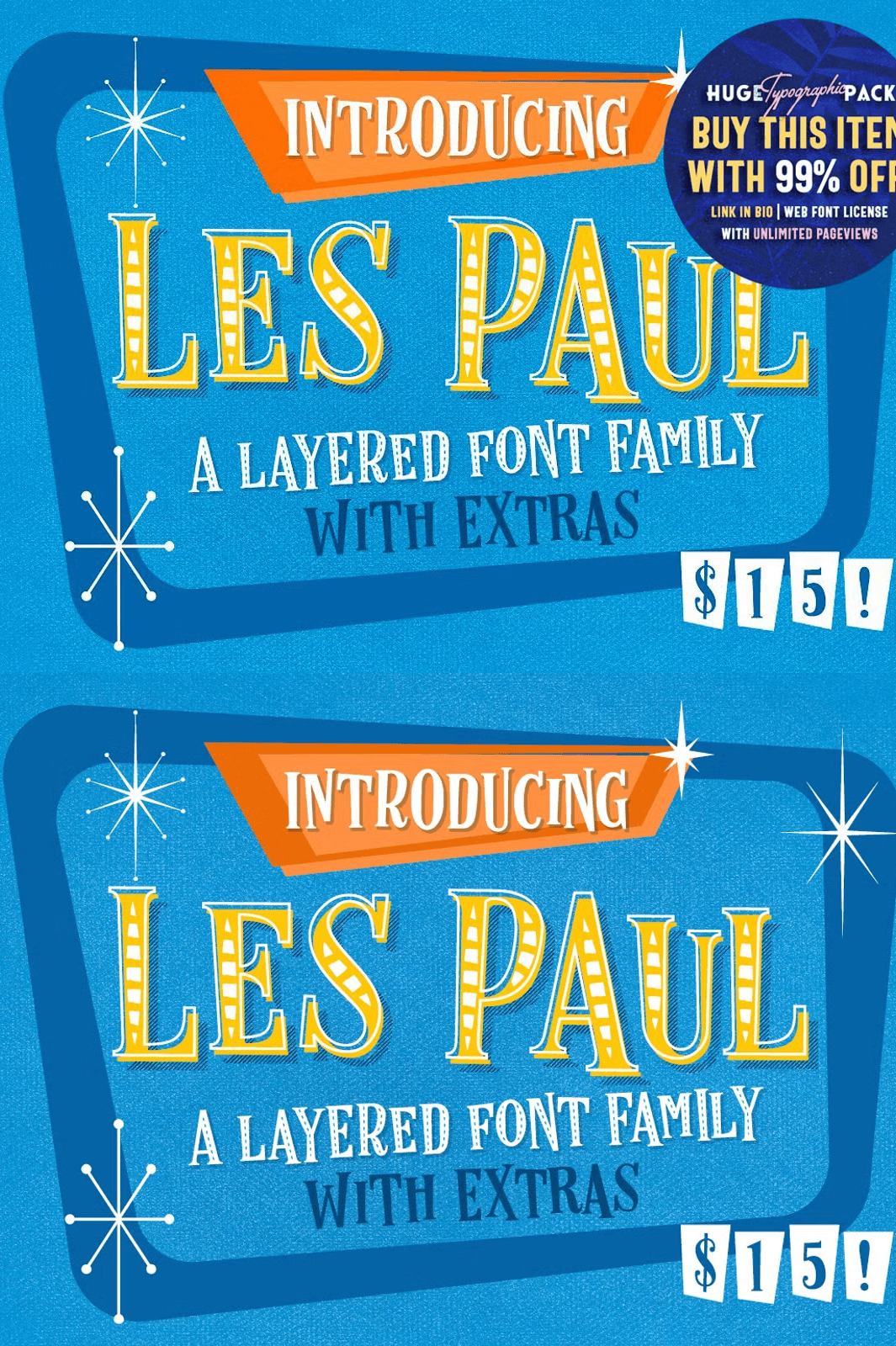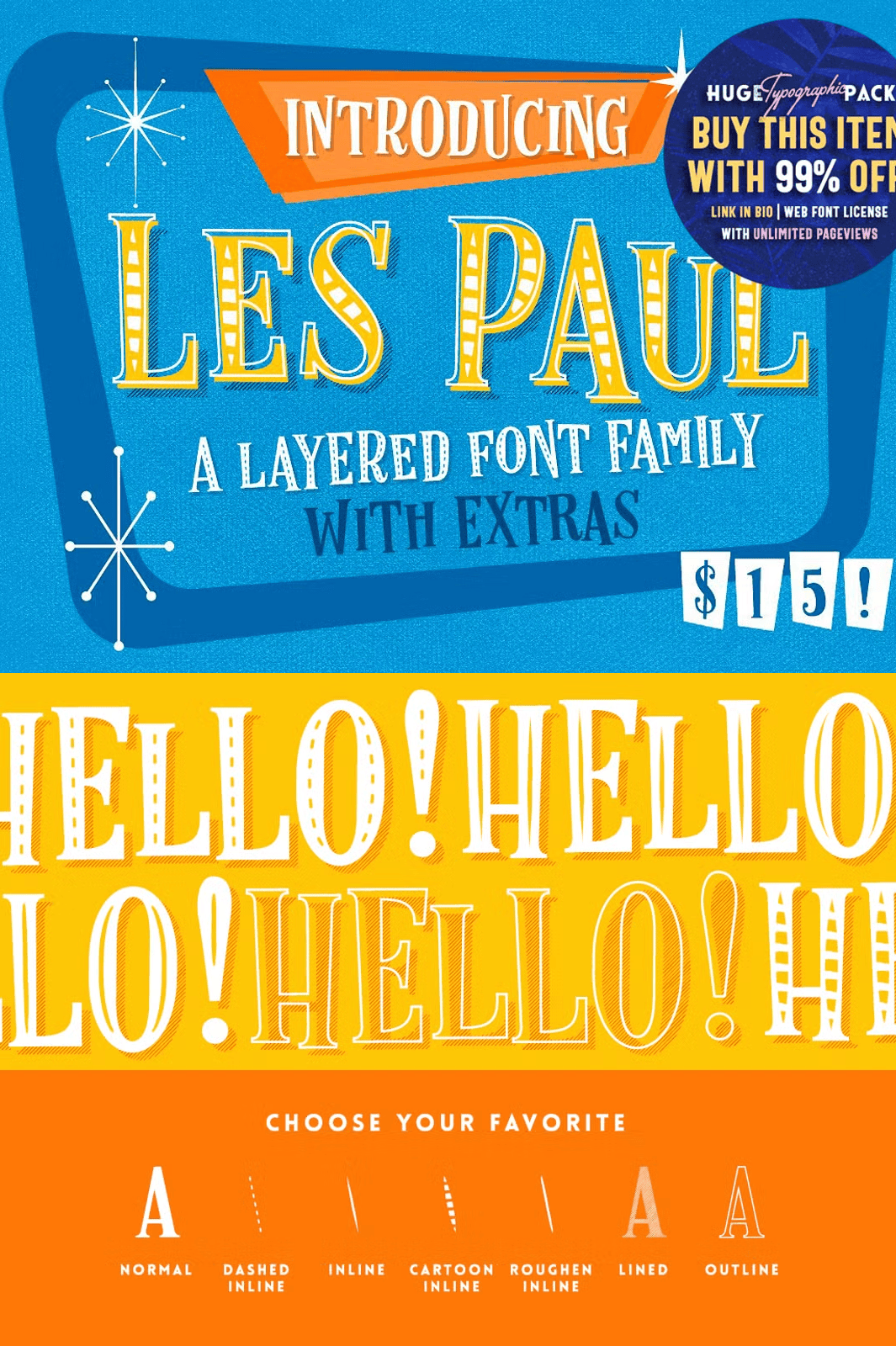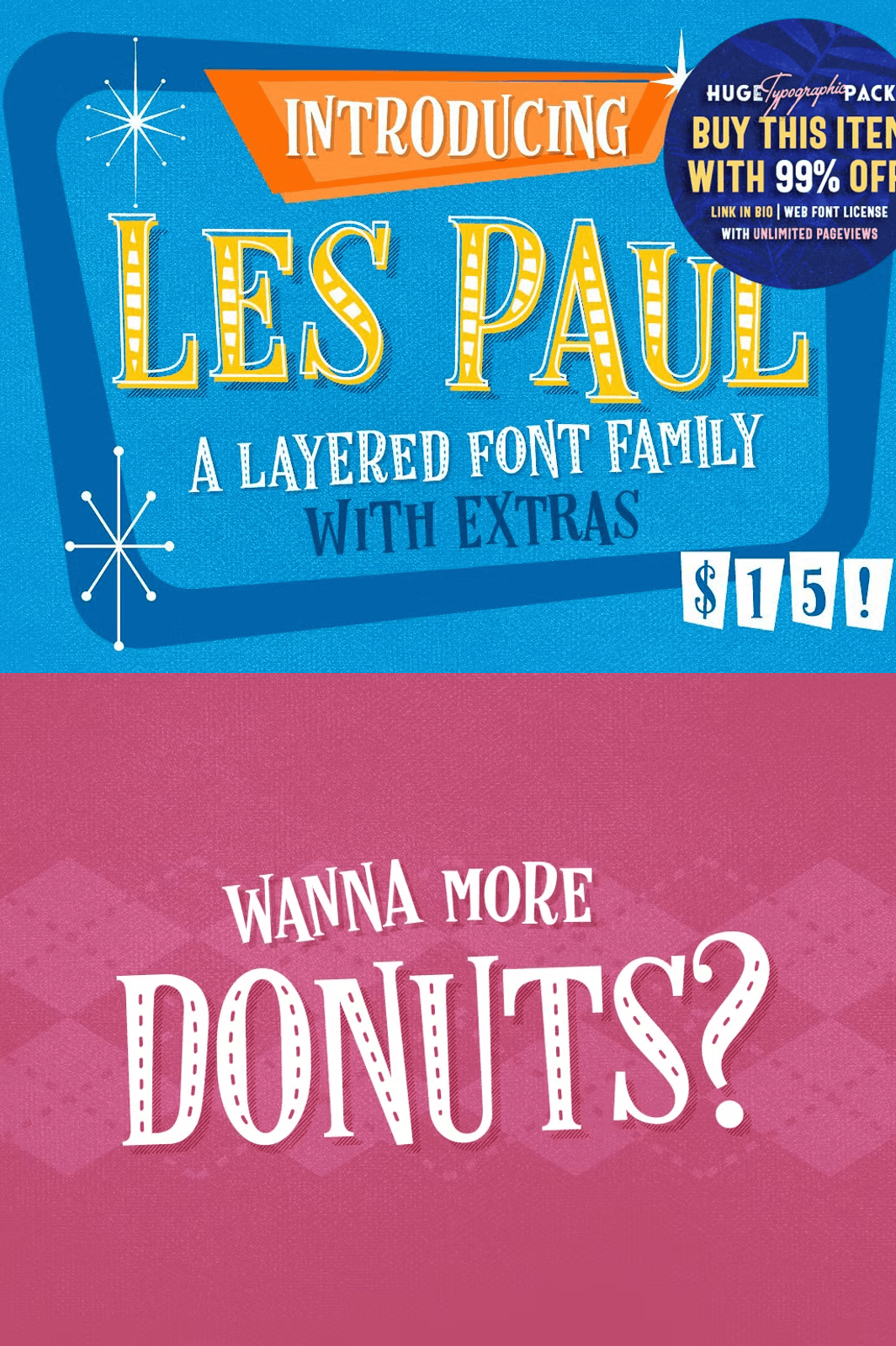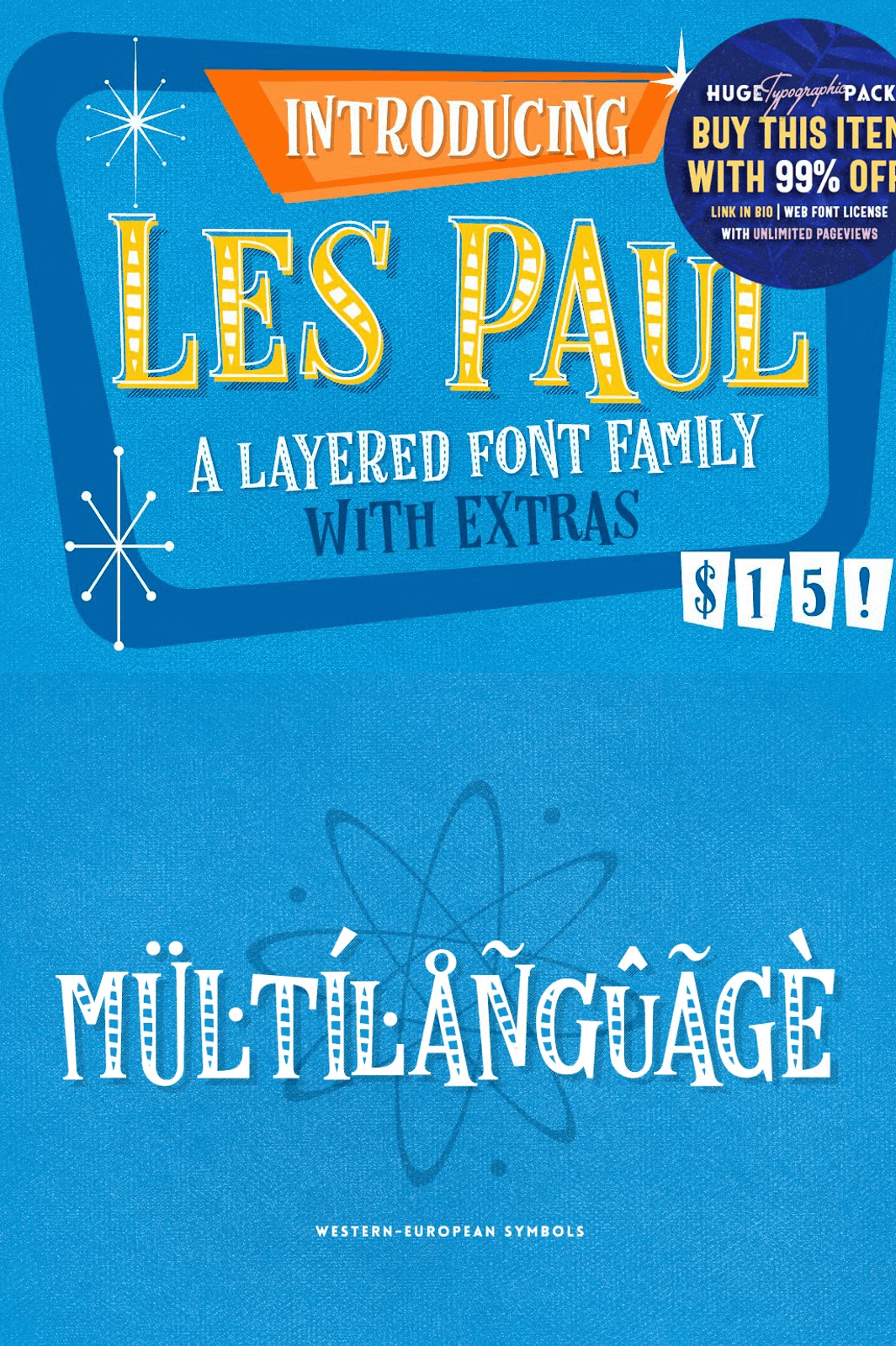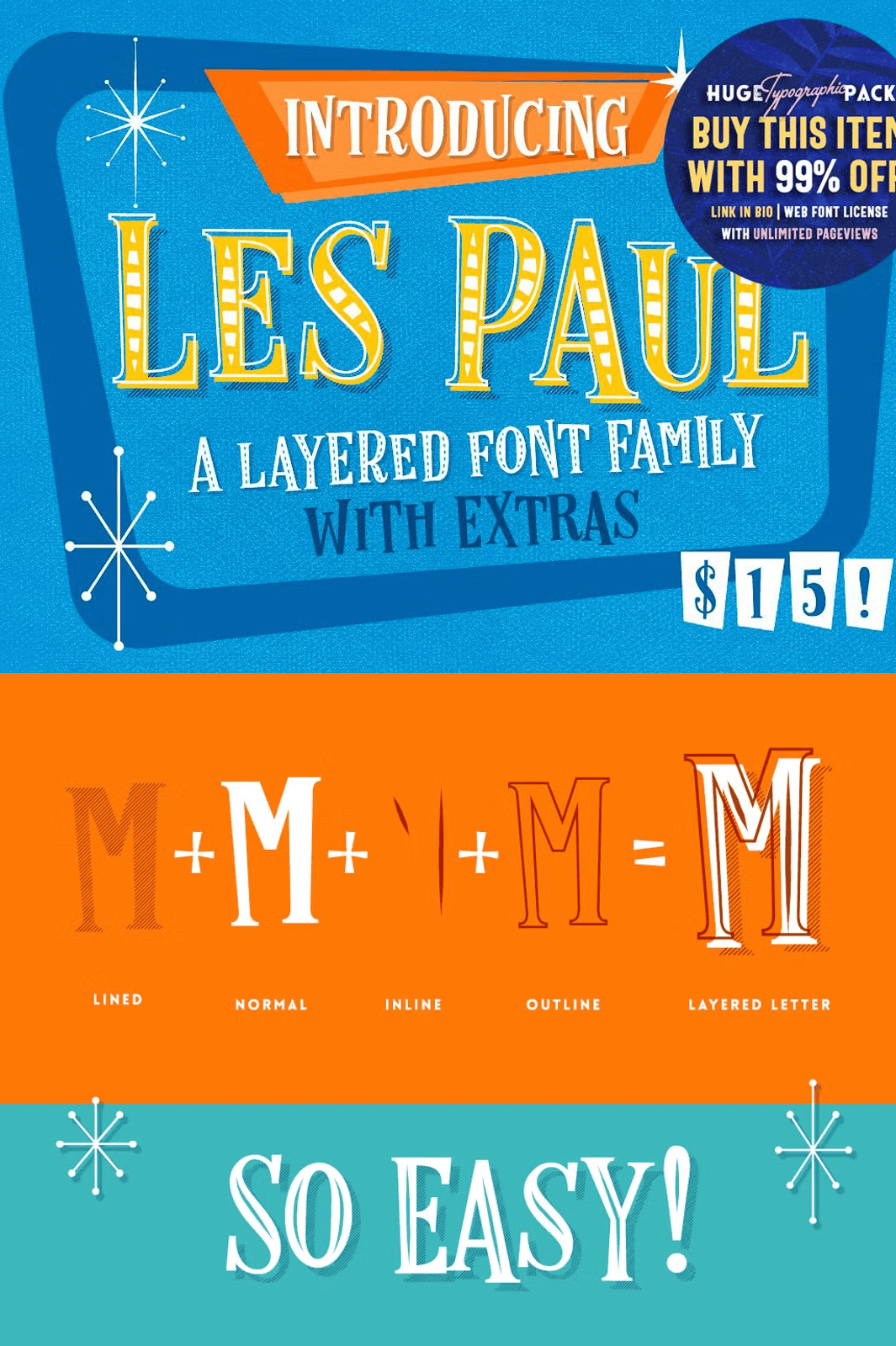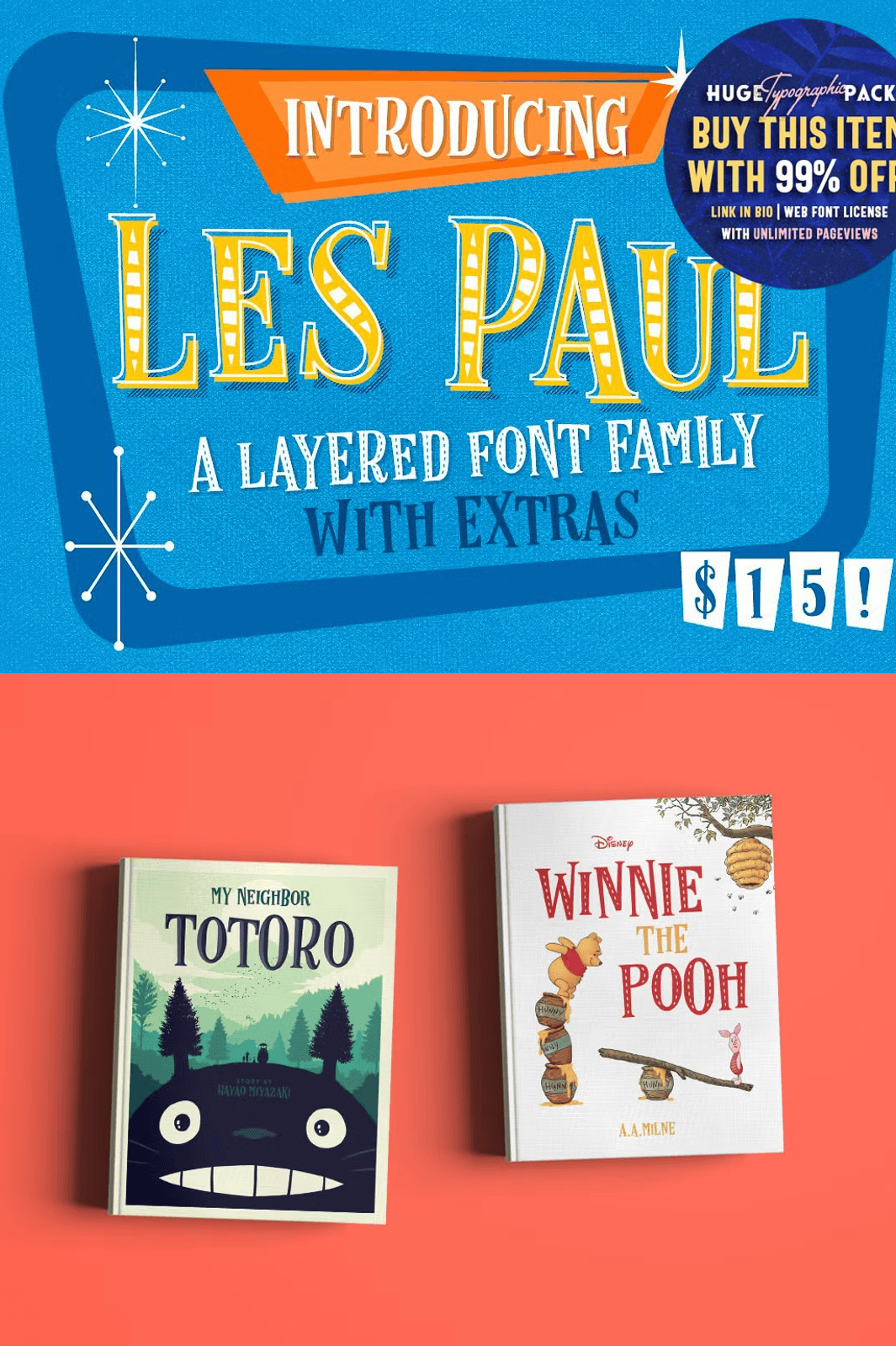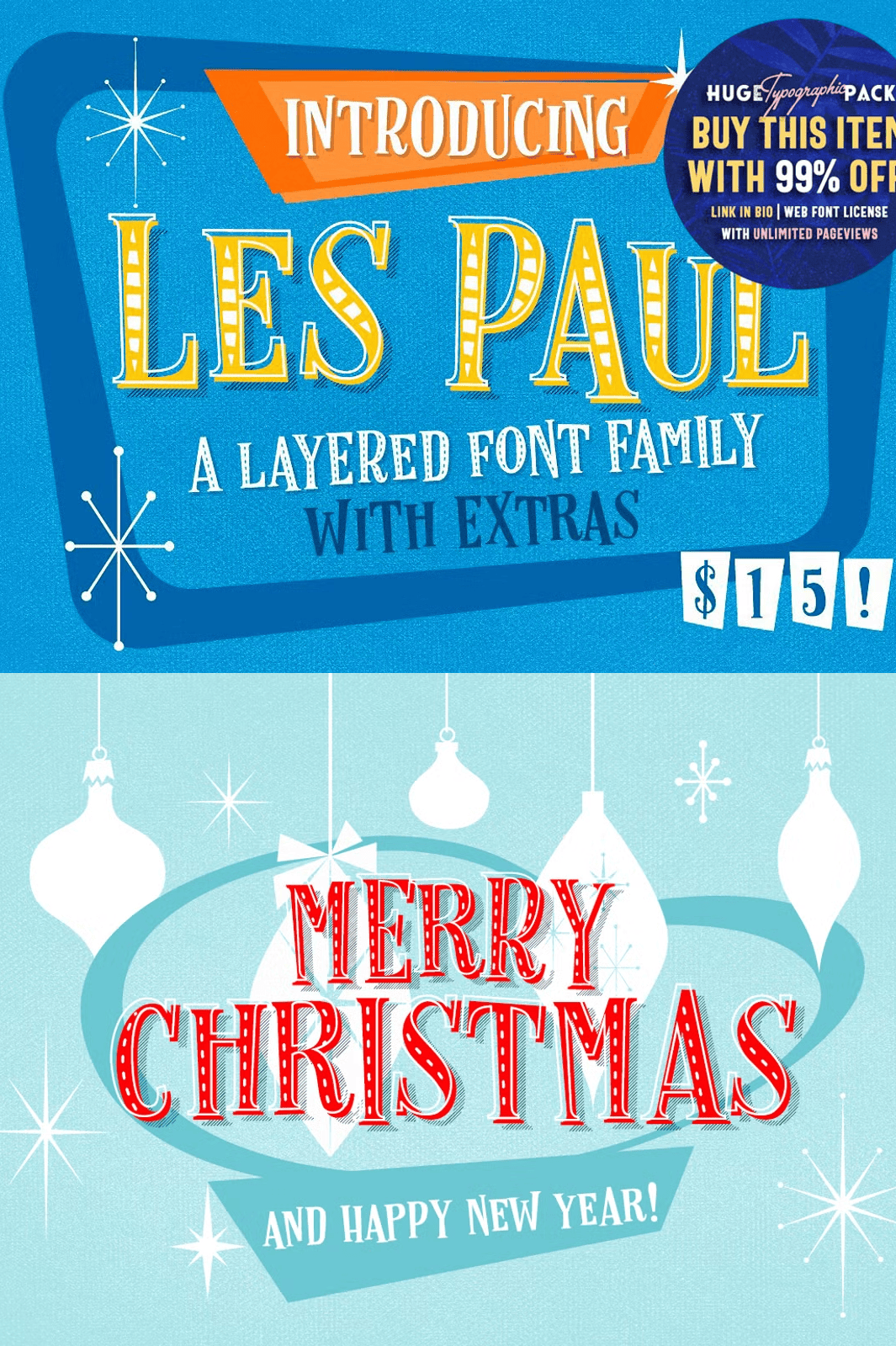
Unleash 7 Dynamic Styles for Bold, Retro Graphic Excellence
Step into the golden era of design with **Les Paul**, a powerful layered font family that captures the spirit of 1950s and early 1960s postcard art, vintage advertising, and bold signage. This isn’t just a font — it’s a full creative toolkit for designers who demand authenticity, flair, and professional polish in every project.
With **seven distinct styles**, Les Paul gives you complete control over visual expression:
- Lined Style: Perfect for creating depth with shadow effects or using as a front layer for sharp, clean headlines.
- Inline Style: Offers four unique variations to add rhythm and movement to your typography — ideal for posters, banners, and branding.
- Outline Style: Use as a sleek decorative frame or accent to elevate your text into premium display artwork.
- Extras Style: Includes retro decorative elements — think classic borders, nostalgic icons, and vintage embellishments — ready to drop into your designs for instant authenticity.
Combine and layer these styles with precision to craft visually rich, eye-grabbing compositions that demand attention and leave a lasting impression.
Master the Retro Aesthetic with Unmatched Design Flexibility
Every character in Les Paul is hand-crafted to reflect the bold, confident energy of mid-century American design. Clean contours, strong contrast, and perfectly balanced spacing merge with nostalgic flair to deliver timeless appeal. Whether you’re working on a music album cover, a record label identity, a retro-inspired fashion line, or a nostalgic book title, Les Paul delivers the perfect visual voice.
Its seamless layering system allows for real-time experimentation. Adjust opacity, reorder layers, or use blending modes to create complex textures without leaving your design software. The result? A high-impact, professional-grade aesthetic that feels both authentic and modern.
Bring Vintage to Life with Premium Typography Features
Designed with professionals in mind, Les Paul includes a suite of advanced OpenType features:
- Multiple Alternates: Access stylistic sets and special character variants to avoid repetition and add visual interest.
- Advanced Kerning & Spacing: Ensure perfect alignment across headlines, logos, and long-form typography.
- Comprehensive Language Support: Includes full western European character coverage — perfect for multilingual projects and global audiences.
Special Note: This font family was inspired by vintage postcard art and mid-century advertising — a tribute to the bold design language of the past. Let its legacy inspire your next masterpiece.